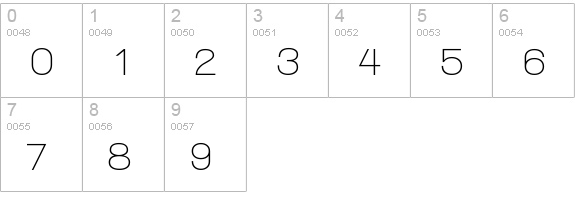
Walkway SemiBold is a sub-bold, structured variant in the Walkway typeface family \xE2\x80\x94 well suited to sub-headlines and emphasised passages.
Introducing Walkway SemiBold, a captivating font that effortlessly combines strength and elegance. Designed with precision and care, this font is perfect for projects that require a bold and impactful presence. With its sturdy letterforms and subtle curves, Walkway SemiBold exudes confidence and professionalism. Its versatile nature makes it suitable for a wide range of applications, from eye-catching headlines to attention-grabbing logos. What sets Walkway SemiBold apart is its ability to strike a harmonious balance between modernity and timeless appeal. Its clean lines and well-defined shapes give it a contemporary edge, while its classic proportions ensure its longevity in any design. But what makes Walkway SemiBold even more appealing is the fact that it is freely available to download at FontsMarket.com. This means that you can easily access this remarkable font without any hassle or cost. Whether you're a professional designer looking to elevate your creations or an enthusiast seeking to add a touch of sophistication to your personal projects, Walkway SemiBold is the ideal choice. Embrace the power of Walkway SemiBold and unleash your creativity. With its bold presence and effortless style, this font is sure to leave a lasting impression. Download it today from FontsMarket.com and experience the freedom to create with precision and flair.